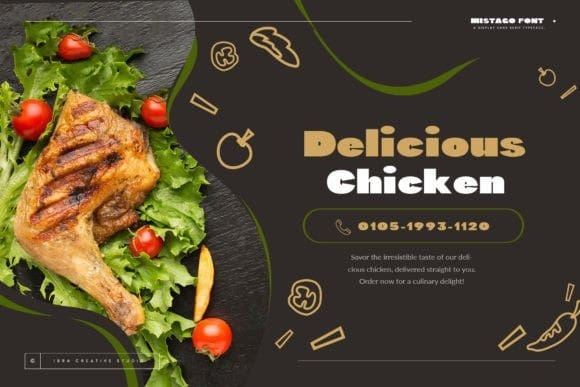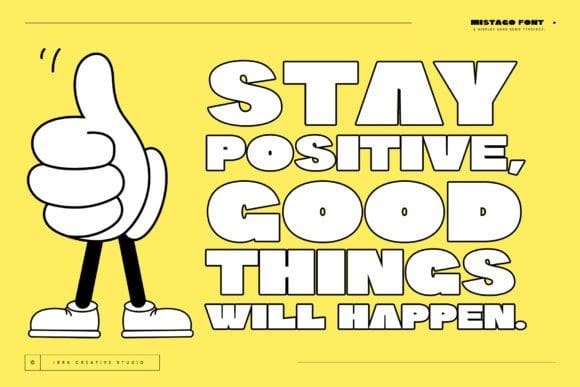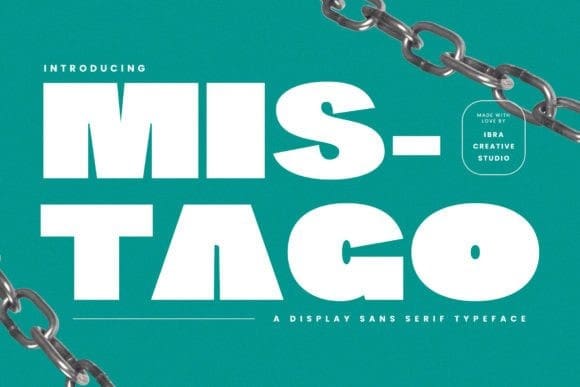
Mistago Font
Mistago Font, a captivating display sans serif typeface, boasts clean lines and bold strokes that command attention on any design canvas. With its modern yet timeless aesthetic, Mistago effortlessly bridges the gap between elegance and versatility. Each letter is meticulously crafted with a perfect balance of simplicity and sophistication, making it ideal for headlines, branding, posters, and editorial design projects.